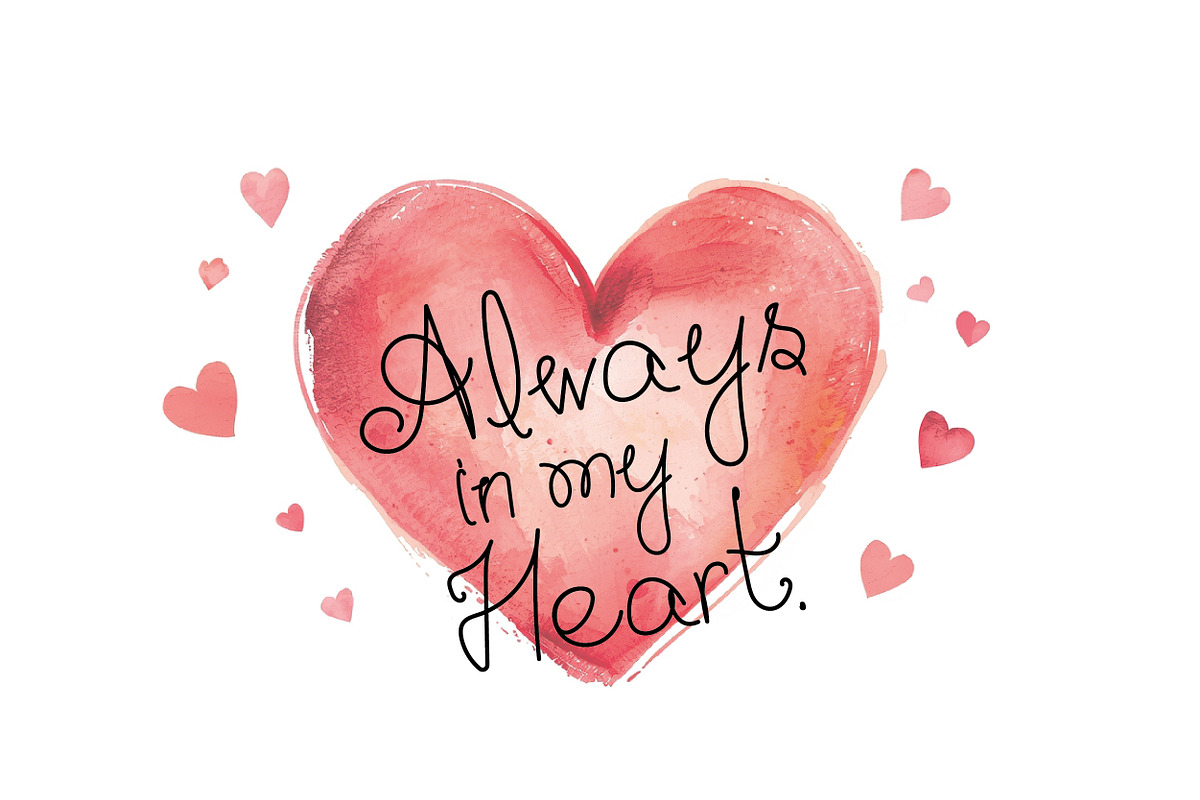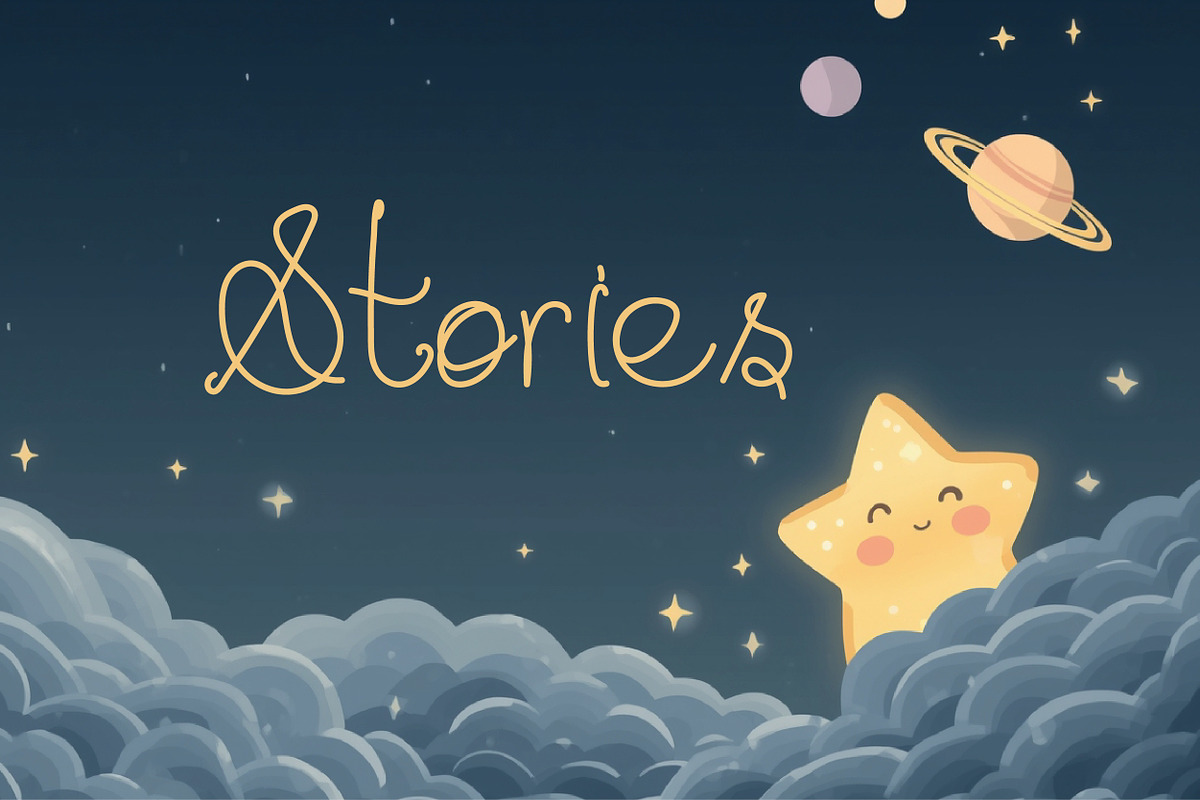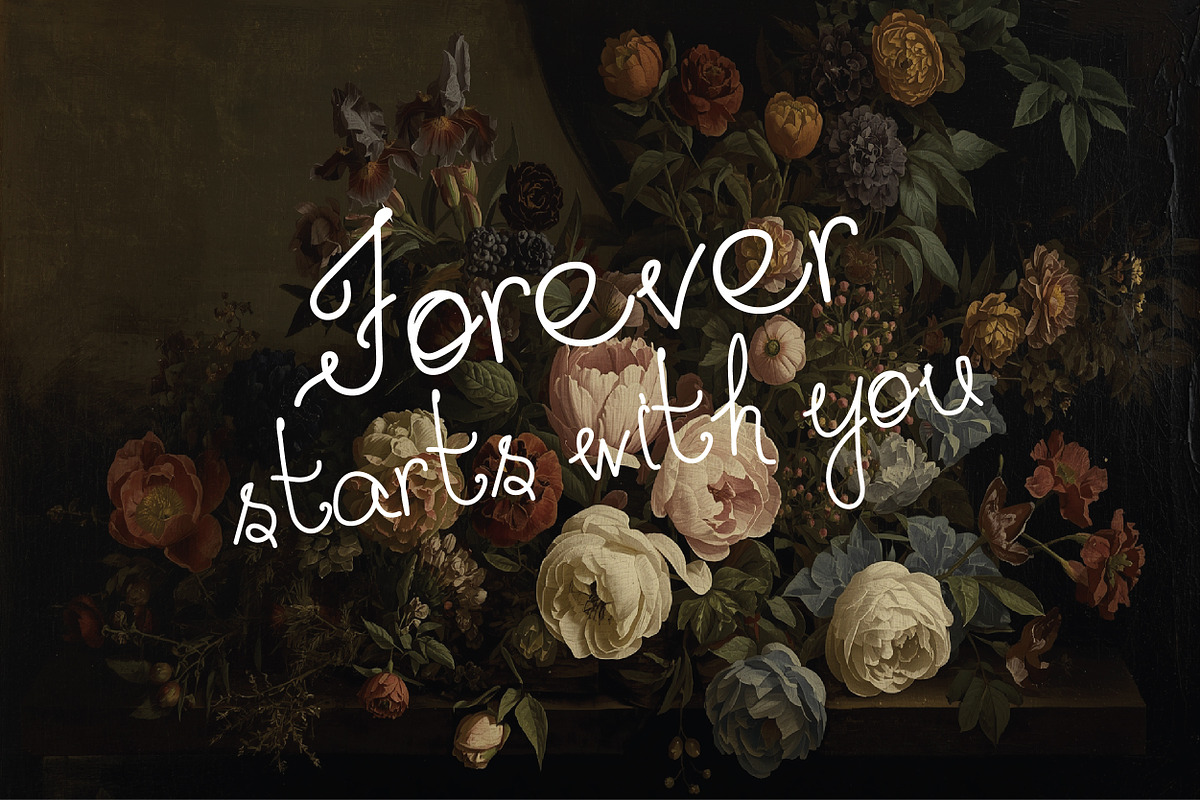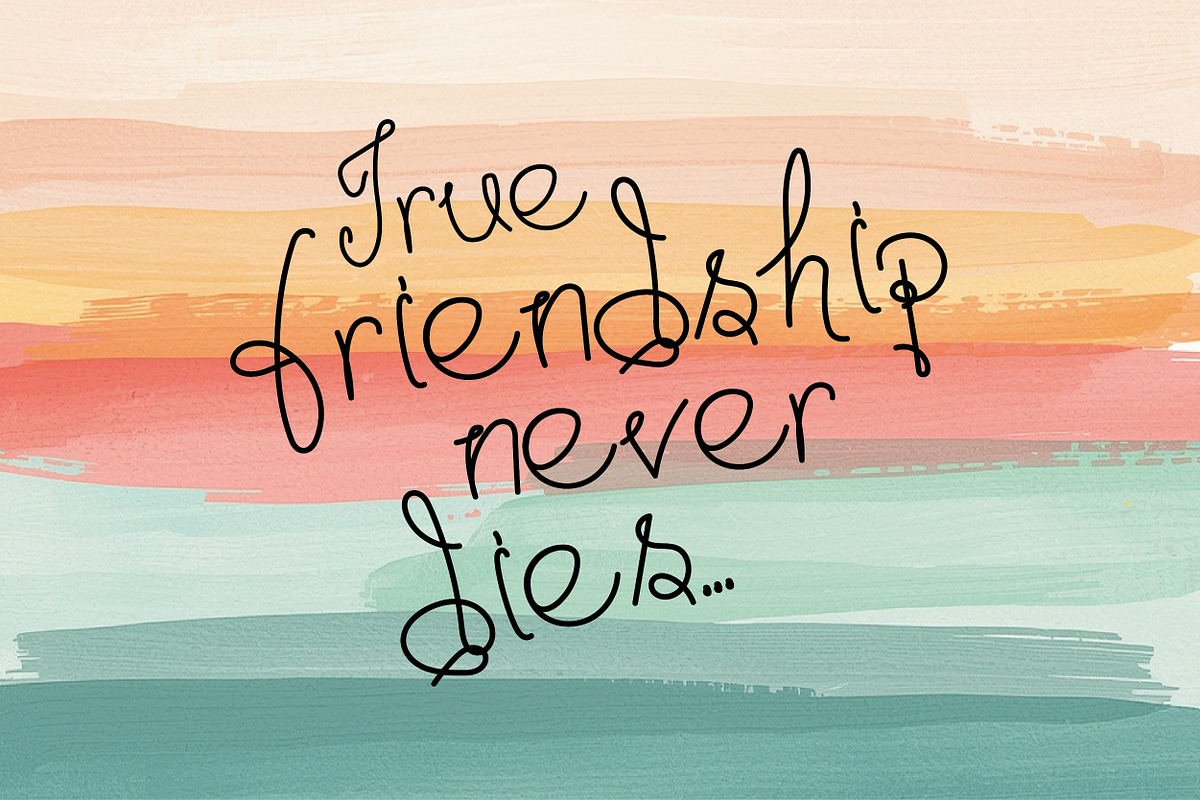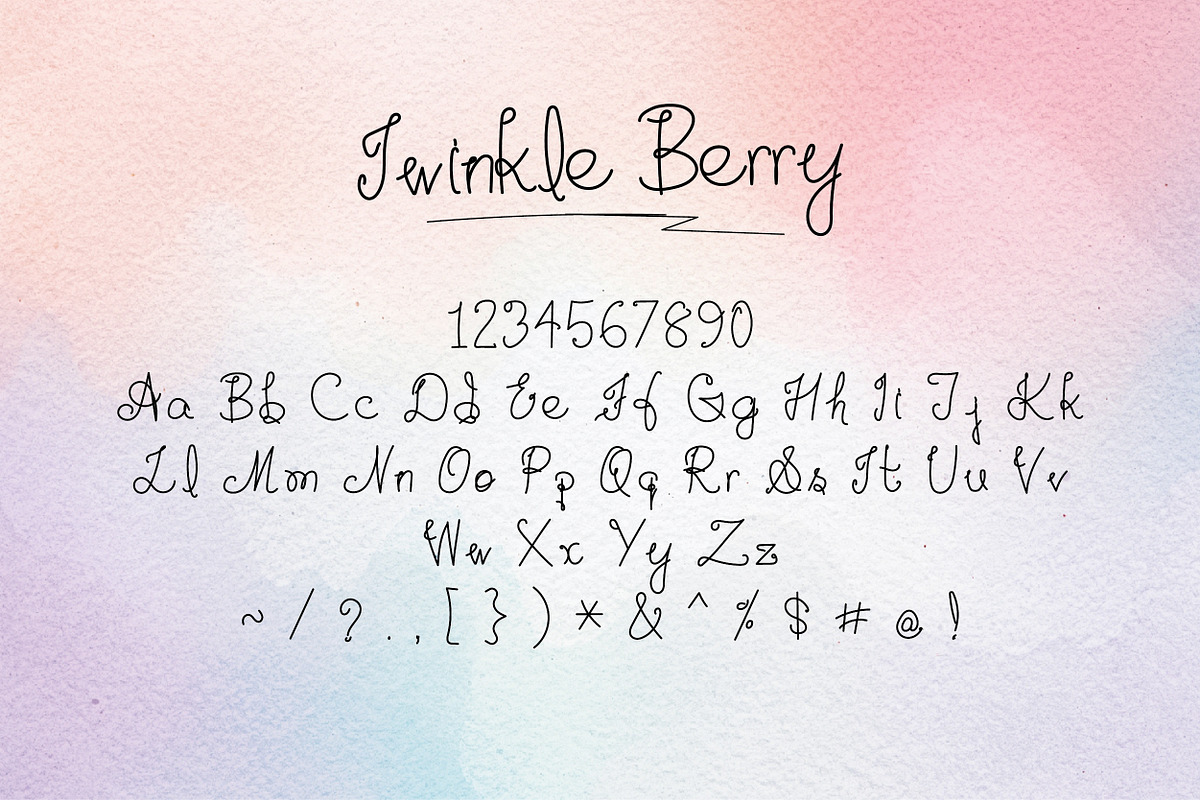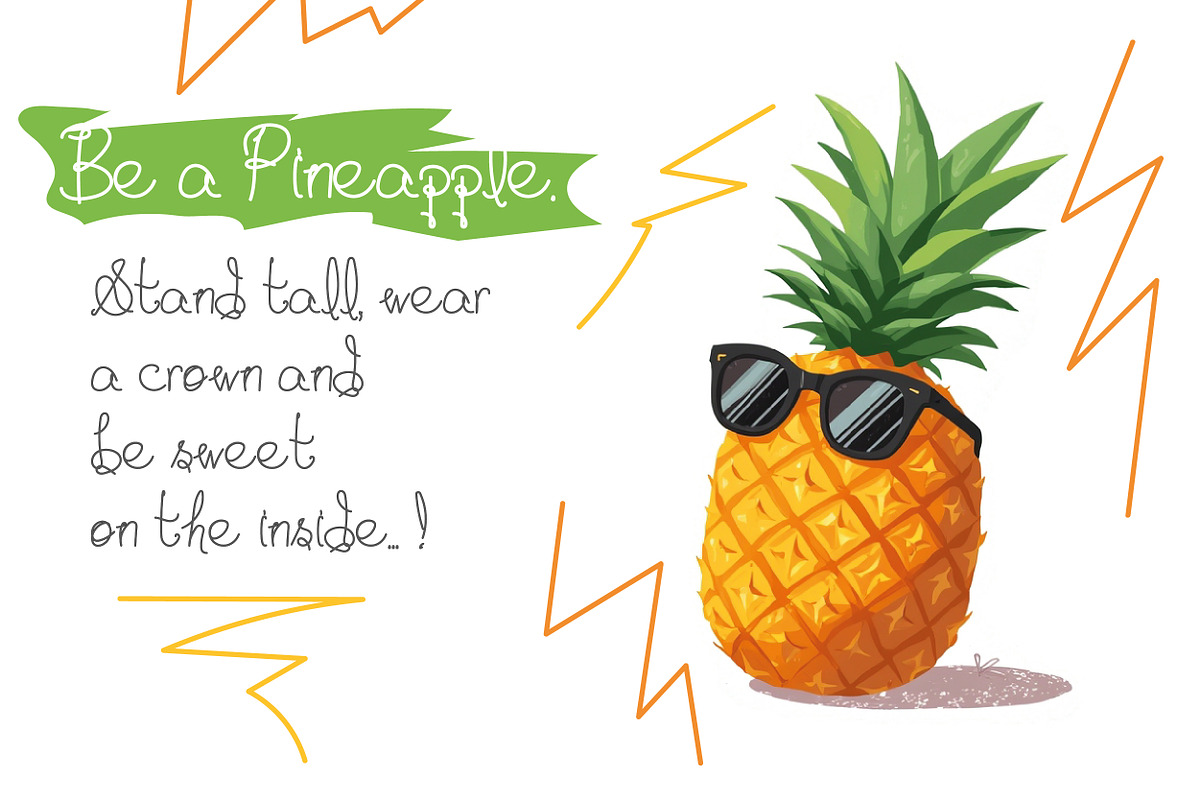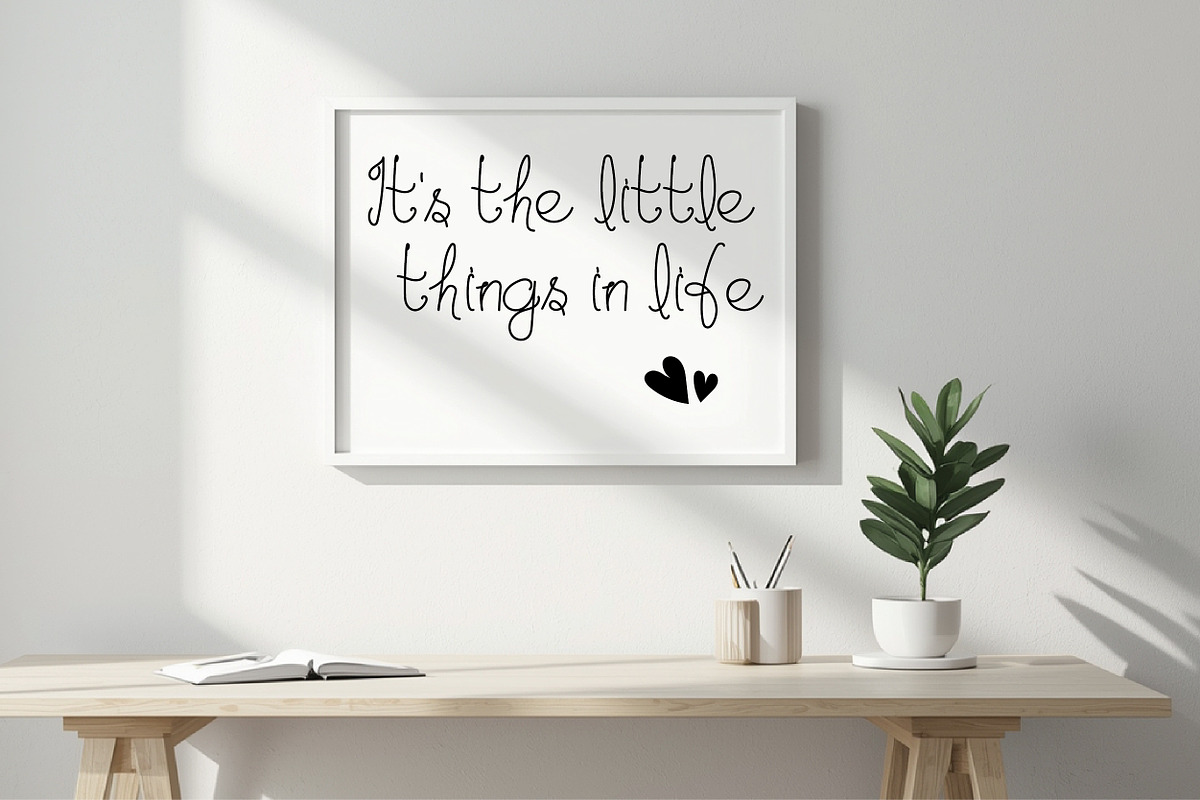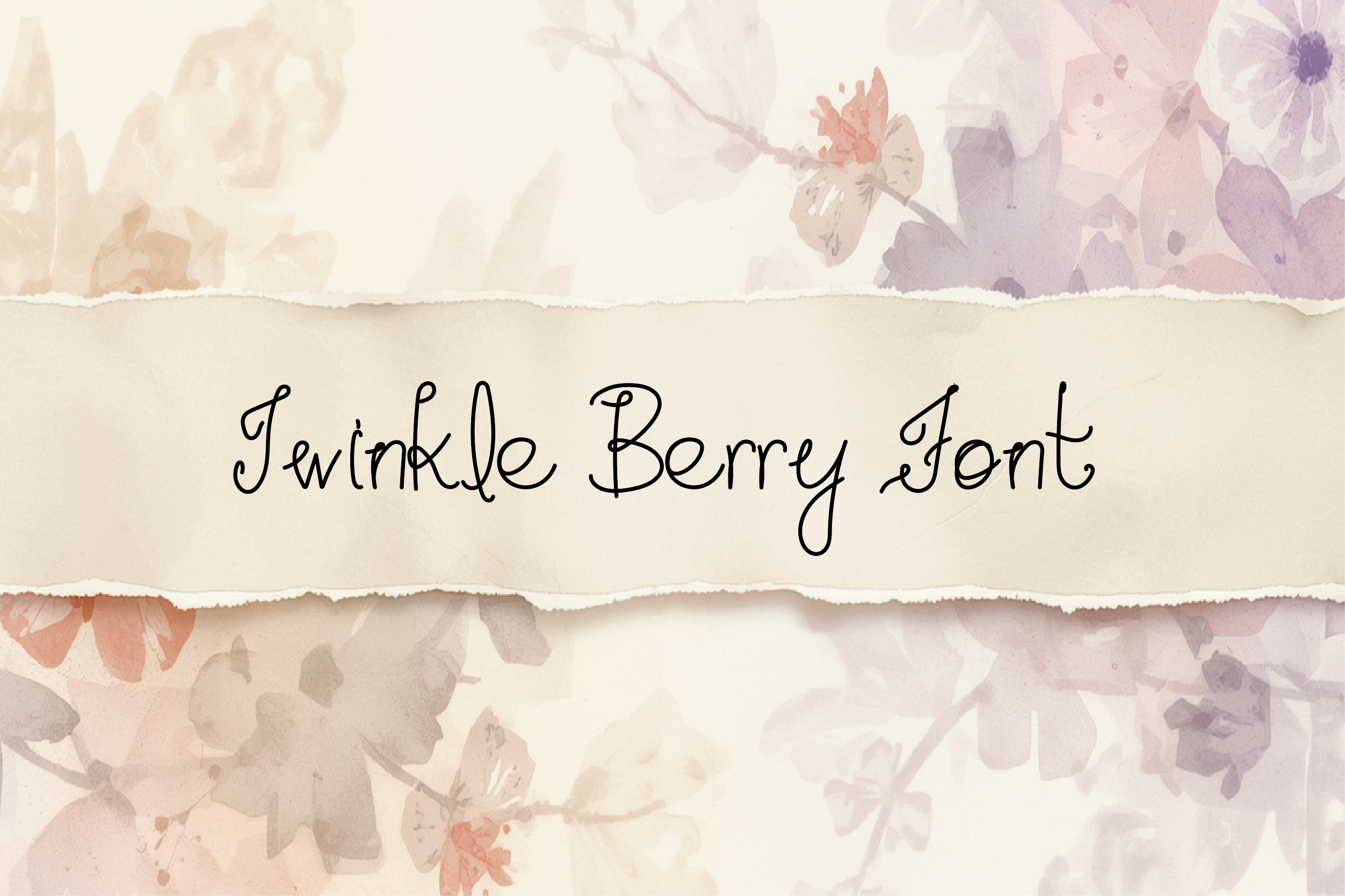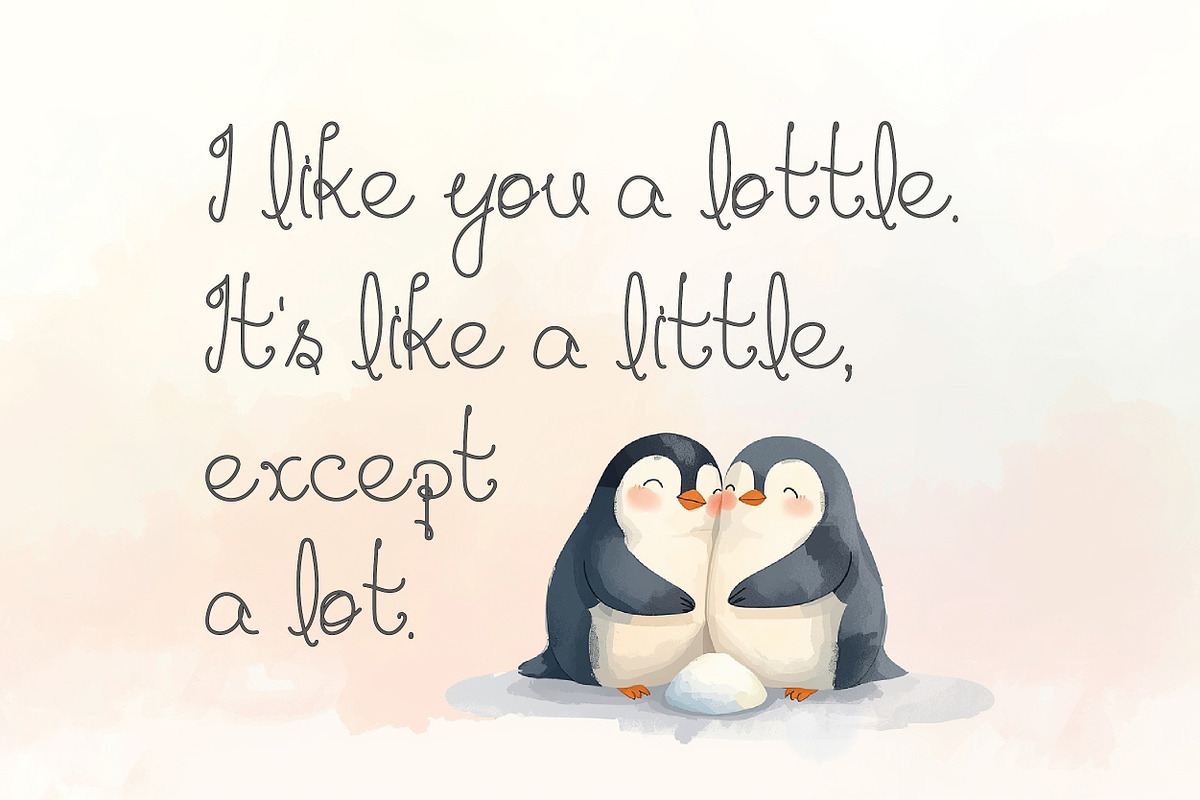
Twinkle Berry Font - Handwritten New
Twinkle Berry is a cute handwritten font built for warmth, emotion, and charm. Every letter feels personal, imperfect in the right way, and full of character. It works perfectly for quotes, greeting cards, children designs, posters, branding, stickers, and social media visuals.
Includes full uppercase and lowercase letters, numbers, and essential symbols like @ # $.
Designed to stay clear on both light and textured backgrounds. Comes with lifetime free support, no excuses, no limits.
โข Full character set with symbols included โข Perfect for quotes, cards, and branding โข Lifetime free support guaranteed